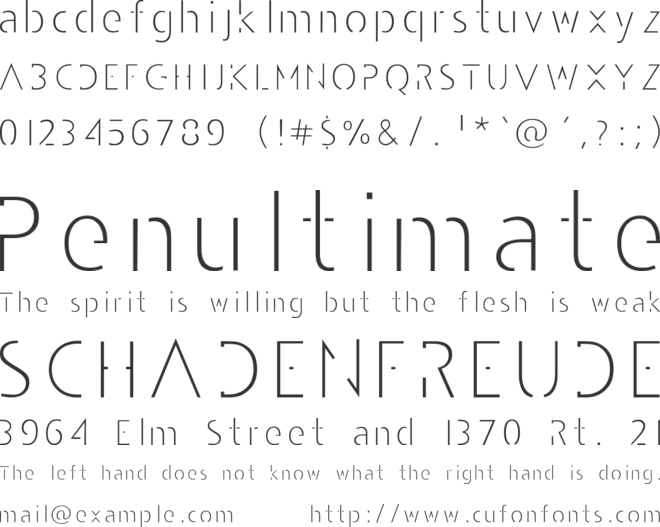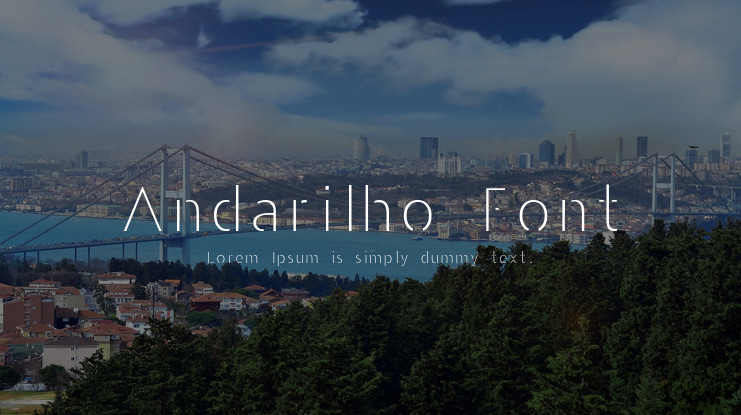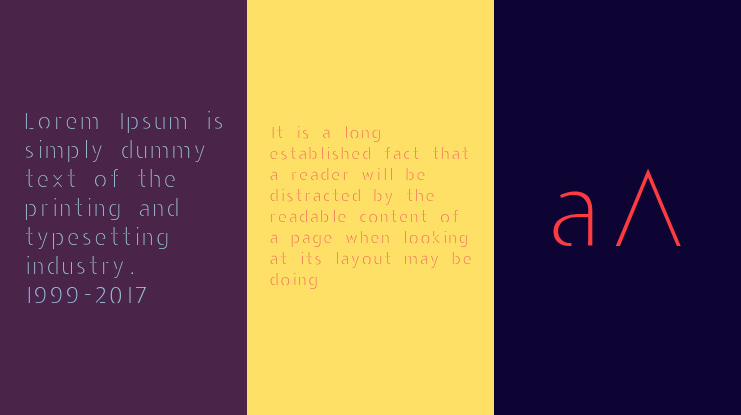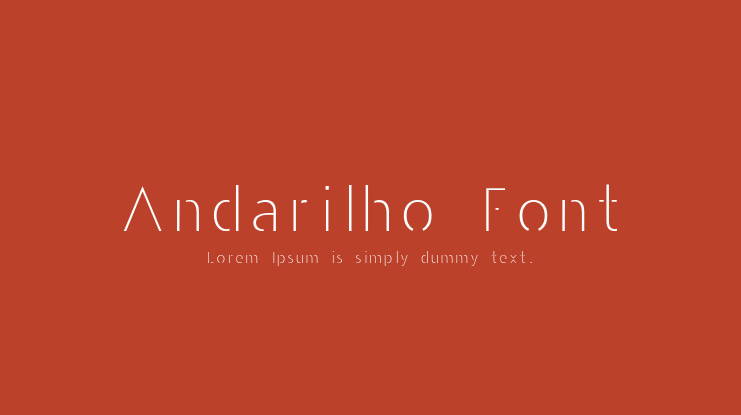
Andarilho Font
This font was created by Andarilho Design totally inspired by Gestalt perception teory. We hope you like it and visit us: www.andarilhodesign.com